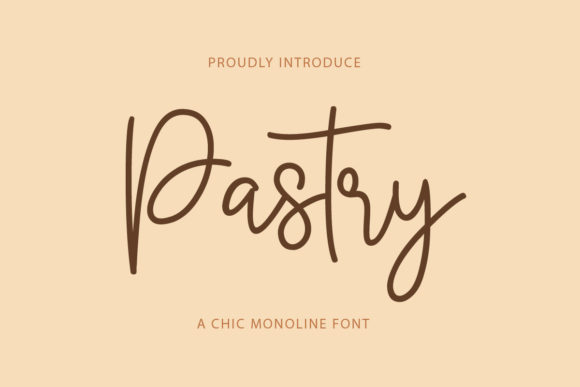
Behold Pastry Font, the beautiful script font that brings a touch of elegance and sophistication to your creative projects. Specifically designed to fulfill your desire for a stunning and refreshing look, Pastry Font is the perfect choice for designers seeking a font that exudes both charm and grace.
As a script font, Pastry Font captivates with its flowing lines and elegant curves, reminiscent of the finesse of cursive handwriting. Each letter is carefully crafted to possess a distinct personality, adding a touch of artistry to your designs. Whether you're creating wedding invitations, branding materials, or social media graphics, Pastry Font will elevate your designs with a timeless and refined aesthetic.
With its remarkable versatility, Pastry Font seamlessly adapts to a wide range of design styles, from classic and traditional to modern and contemporary. It beautifully complements designs requiring a delicate and feminine touch, such as fashion branding, cosmetics packaging, and handwritten notes. For those seeking a unique and eye-catching display font for their headlines, posters, or website headers, Pastry Font shines with its distinctive charm.
But what truly sets Pastry Font apart is its ability to evoke emotions and create a lasting impression. Its delicate strokes and refined curves exude a sense of warmth and intimacy, drawing your audience in and creating a connection. Whether you're designing heartfelt wedding invitations, elegant brochures, or enchanting social media posts, Pastry Font imbues your designs with a touch of magic that resonates with your audience.